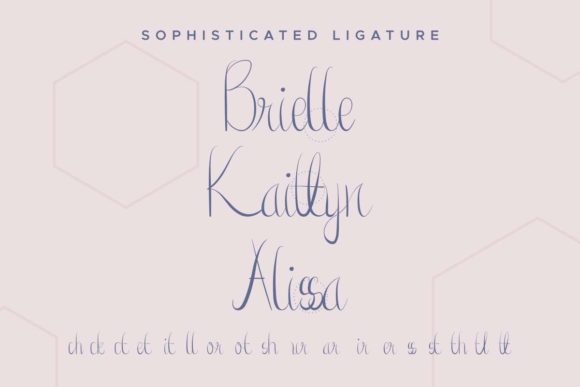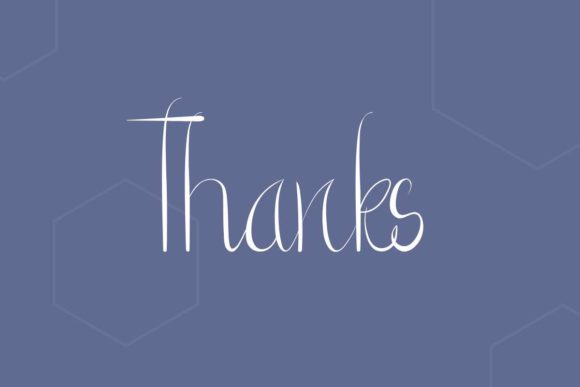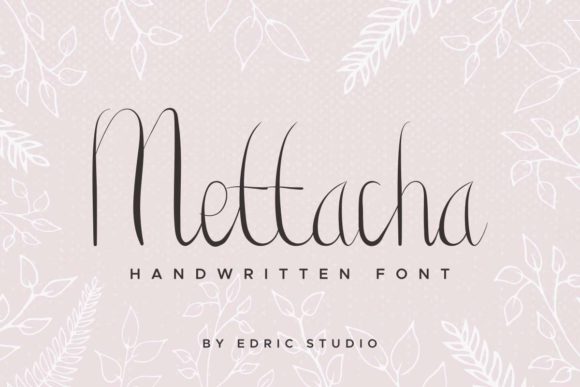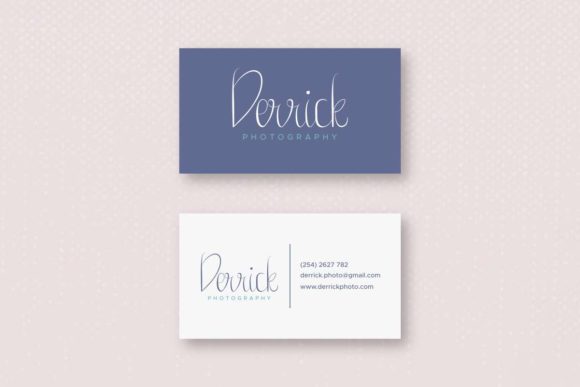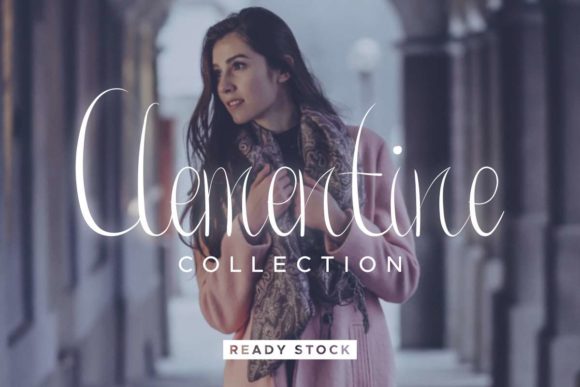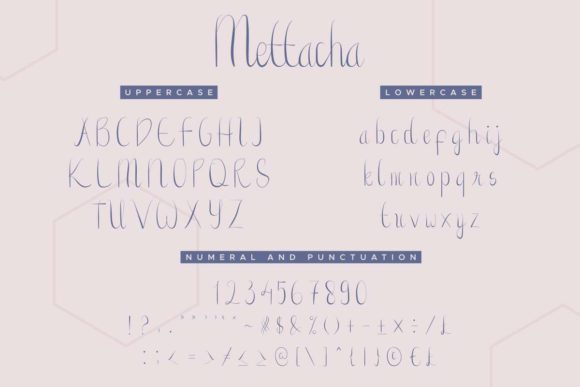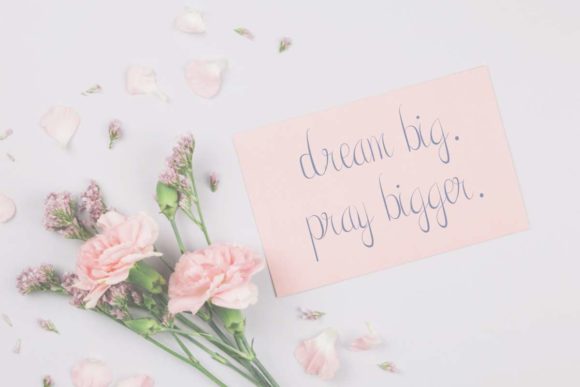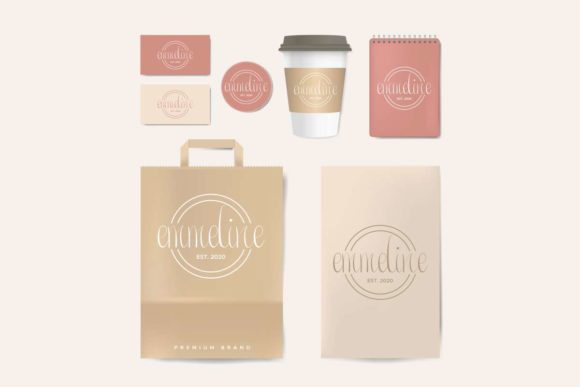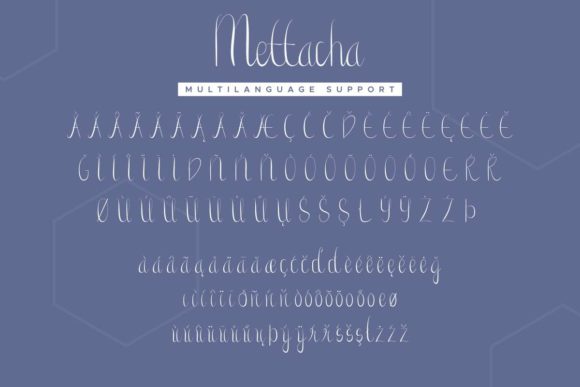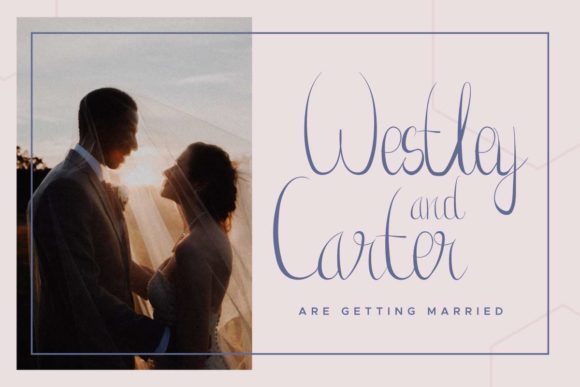
Mettacha Font
About Mettacha Font
Mettacha is an elegant and casual handwritten font with an incredibly friendly feel. This font is PUA encoded which means you can access all of the amazing glyphs and swashes with ease!